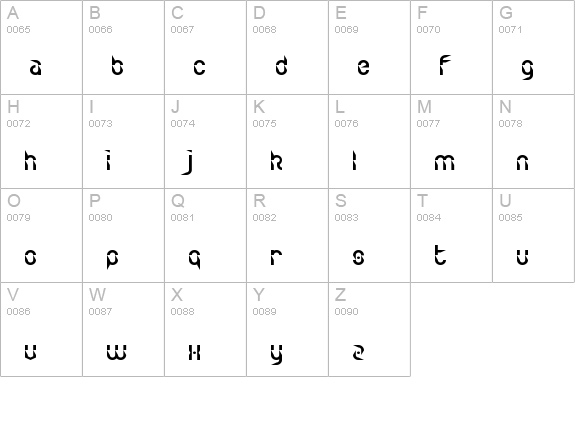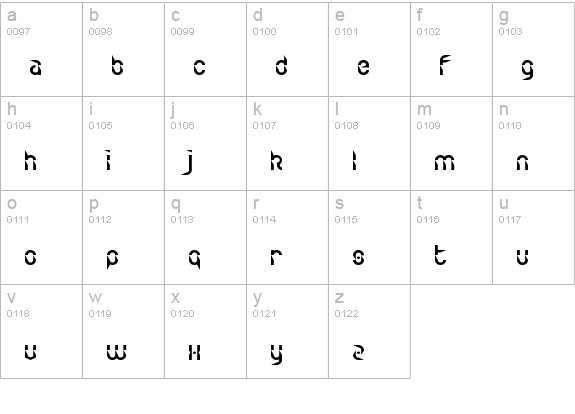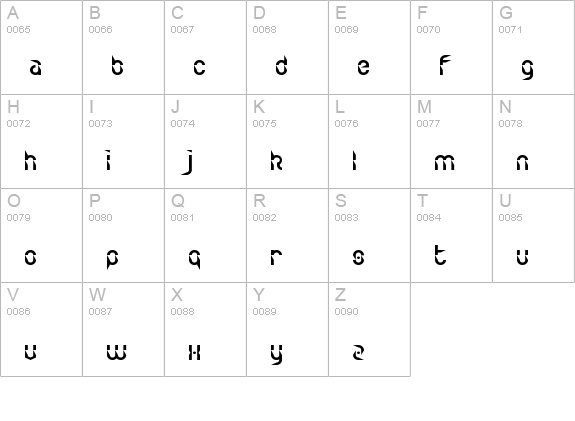
Zdyk Leo Regular Font Details
Zdyk Leo Regular is the standard, neutral variant in the Zdyk typeface family \xE2\x80\x94 well suited to general body text, paragraphs, and standard typographic work.
Zdyk Leo Regular font is a versatile and modern typeface that exudes elegance and sophistication. With its clean lines and balanced proportions, this font is perfect for a wide range of design projects, from branding to editorial design. Zdyk Leo Regular font is carefully crafted to ensure legibility and readability, making it a great choice for both print and digital applications. The font features a full set of uppercase and lowercase letters, numbers, punctuation marks, and special characters, giving you plenty of options to create stunning designs. Whether you're working on a logo, website, poster, or any other project, Zdyk Leo Regular font will add a touch of class and style. Best of all, Zdyk Leo Regular font is available for free download at FontsMarket.com. This means you can use this high-quality font in your projects without any cost, making it a fantastic option for designers on a budget. Don't miss out on this amazing opportunity to enhance your designs with Zdyk Leo Regular font!